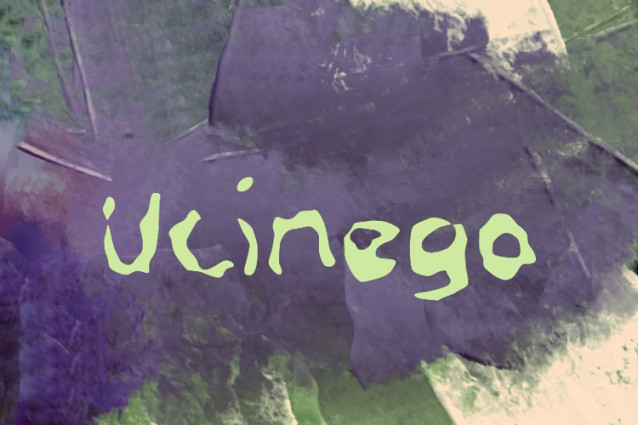
Ucinego Font
Ucinego Font, Suitable for any design needs : logo, branding, modern advertising design, logos, poster quote, book / cover Title, editorial design, website / blog, card, t-shirts, and any hand-lettered needs.